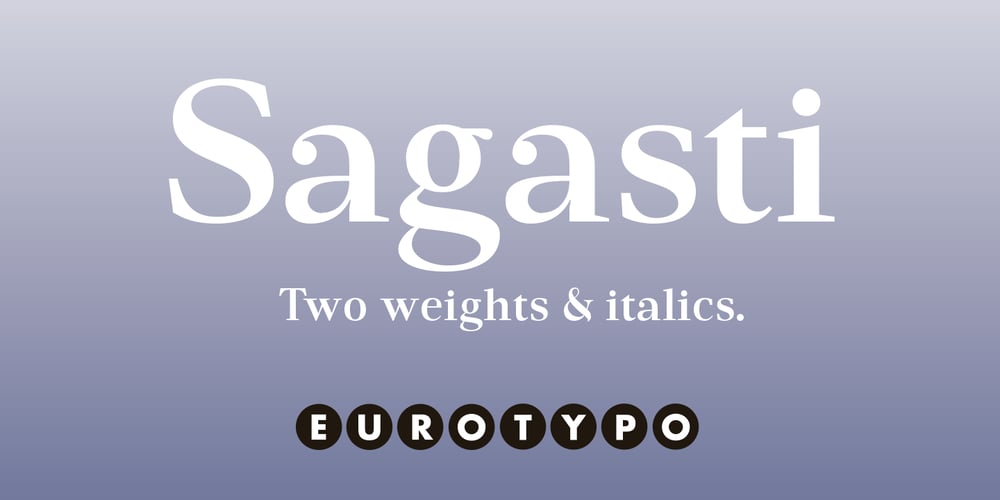
Sagasti Font Family was designed by Olcar Alcaide and published by Eurotypo. Sagasti contains 4 styles and family package options. Sagasti is a font family that contains two weights: Regular and Bold, with their corresponding Italics style.These fonts are characterized by a straight and generous serif that provides consistent stability. We have focused on controlling vertical, horizontal and oblique strokes thicknesses, as well as curved strokes.All glyphs were carefully drawn and precise kerning control has been made, providing optimal readability for texts and the beauty of the headlines.